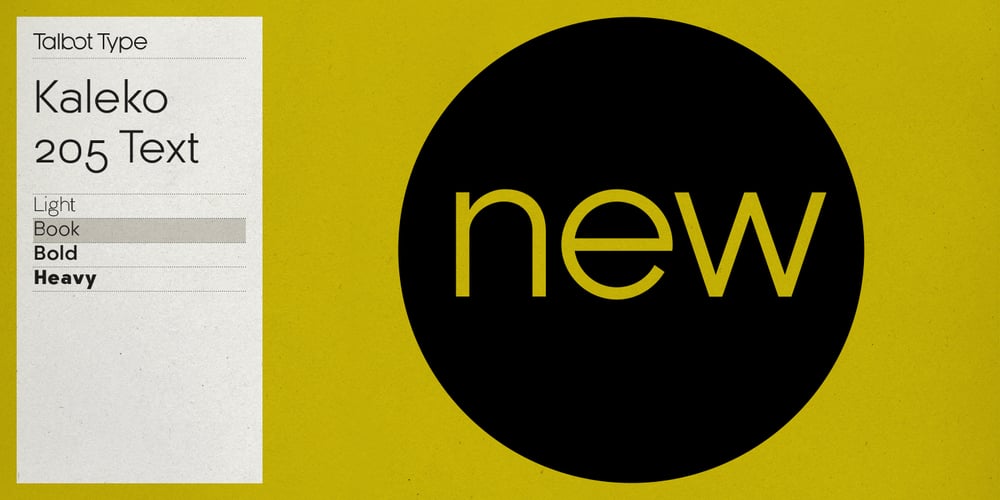
Kaleko 205 Text
Kaleko 205 Text font
Kaleko 205 Text Font Family was designed by Adrian Talbot and published by Talbot Type. Kaleko 205 Text contains 8 styles and family package options. Kaleko 205 Text is the text specific variation of stablemate, Kaleko 205. With a shallower x-height and longer ascenders and descenders, its more traditional proportions make it more economical with space and better suited to continuous text. It’s a well-balanced, versatile, modern sans, highly legible as a text font and with a clean, elegant look as a display font at larger sizes. The Kaleko 205 Text family comprises of four weights and includes old style non-aligning (lower case) numbers, both proportional and tabular as well as accented characters for Central European languages. It is closely related to Kaleko 105 Text, which offers variations in some characters, most notably a single storey lower case a and g.